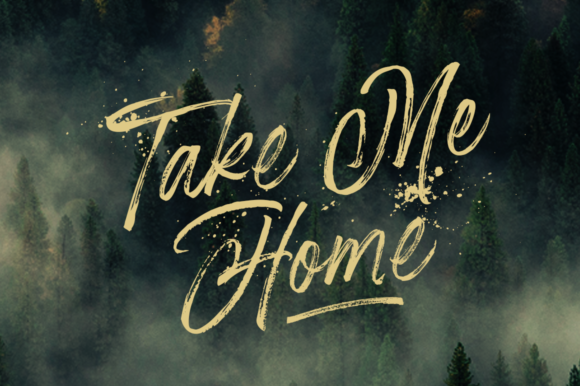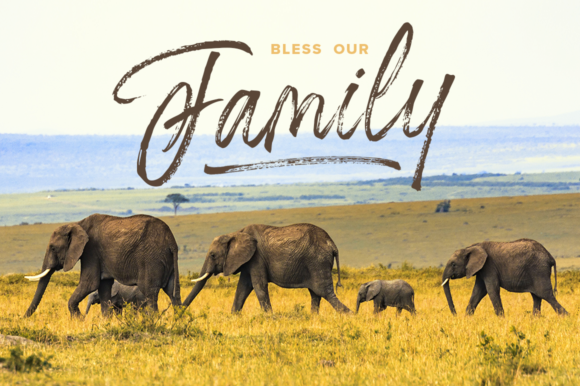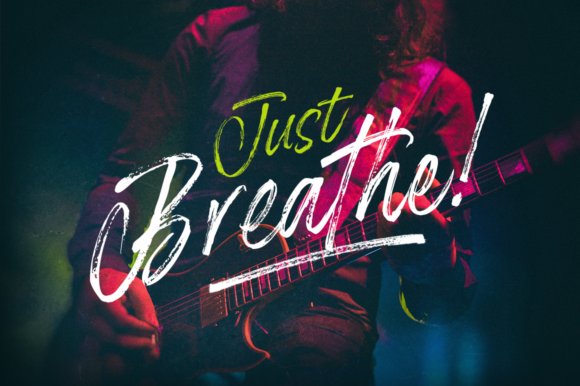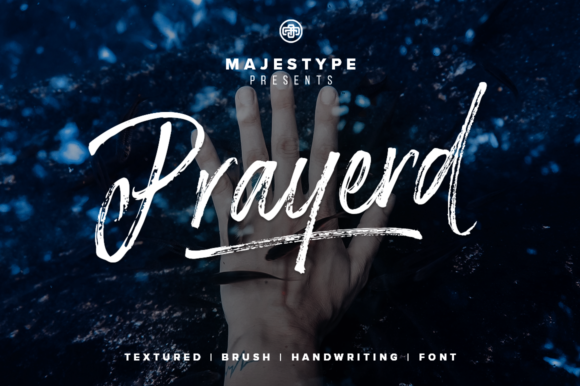
Introduction to Prayerd Font
Prayerd is a casual, fun handwritten font, created by using a brush pen.
Clean and a little bit quirky, this font is the perfect fit for all of your logos, branding, social media, and crafty DIY projects .
Prayerd Font offers exceptional quality and versatility, making it a valuable addition to your design toolkit. Whether you’re creating for personal projects or commercial use, Prayerd Font delivers professional results.